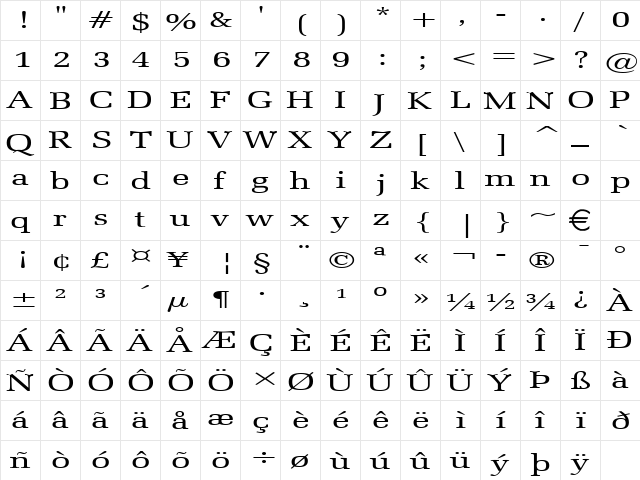
BidRomanExtended Normal
Design Context for BidRomanExtended Typeface
BidRomanExtended takes a measured approach to typography — its balanced proportions and neutral character make it a reliable workhorse for both digital and print work.